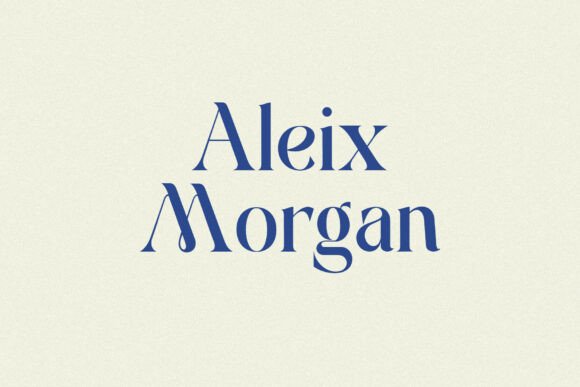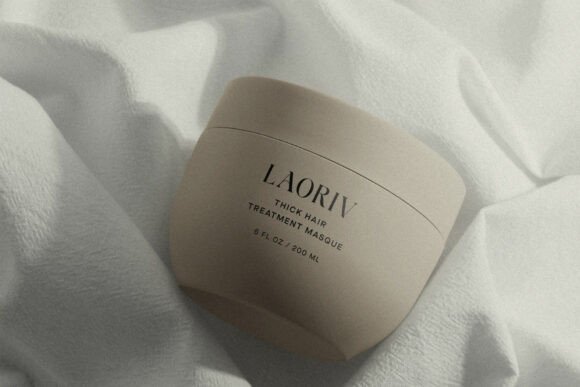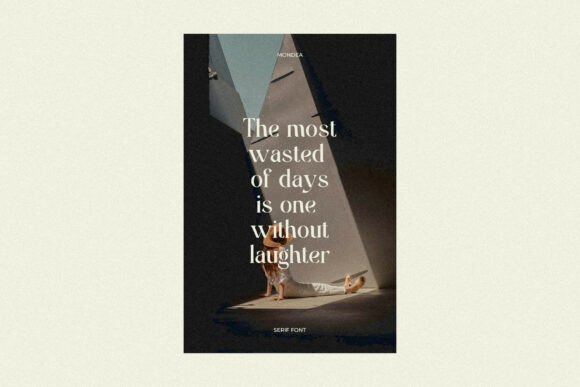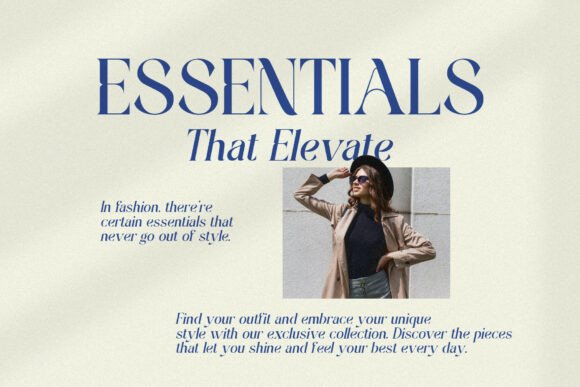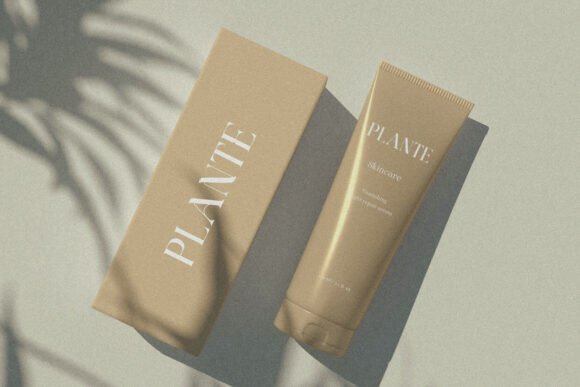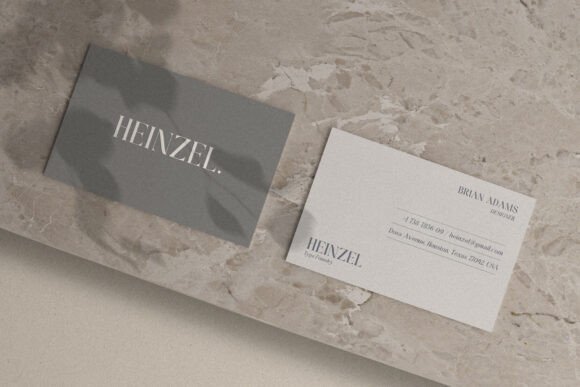
Introduction to Mondeba Font
Mondeba is a modern serif font that blends timeless elegance with contemporary sophistication.
Designed with refined ligatures and stylish alternates, Mondea brings a graceful flow and distinctive character to every word Its balanced proportions and smooth curves make it perfect for luxury branding, fashion editorials, magazines, logos, wedding designs, and high-end packaging.
Key Features of Mondeba Font